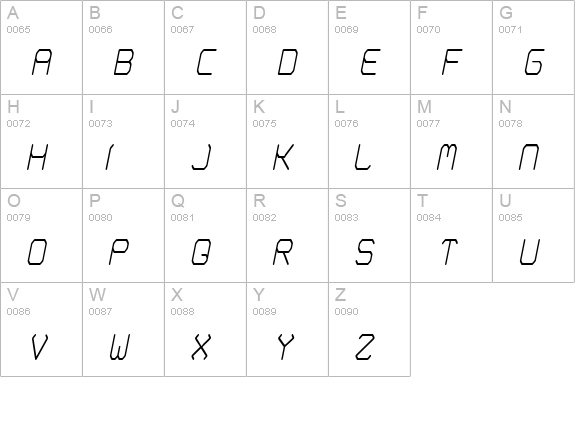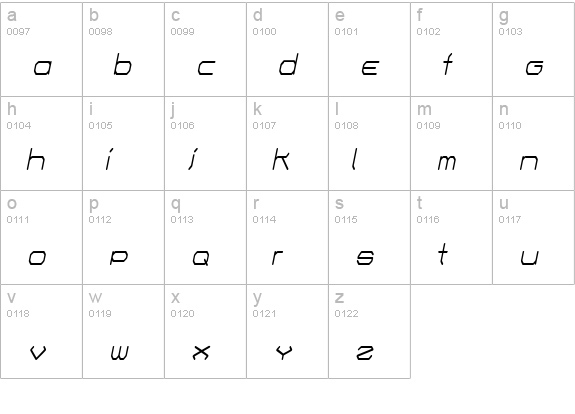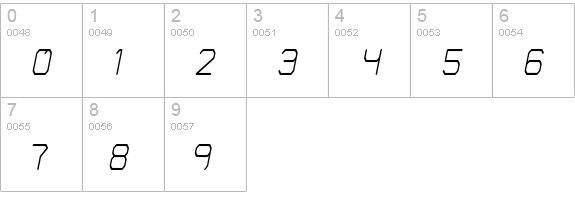
Fontmaker's Choice ThinItalic Font Details
Fontmaker's Choice ThinItalic is a sleek and elegant typeface that exudes sophistication and modernity. With its delicate and slanted design, this font adds a touch of elegance to any project, making it perfect for stylish and refined designs. The thin and italic style of Fontmaker's Choice gives a unique and contemporary look, ideal for fashion magazines, luxury branding, and upscale invitations. What makes Fontmaker's Choice ThinItalic even more appealing is the fact that it is available for free download at FontsMarket.com. This means that you can easily access this high-quality font without any cost, making it a fantastic choice for designers on a budget or anyone looking to add a touch of elegance to their work. Don't miss out on the opportunity to enhance your designs with the beauty and sophistication of Fontmaker's Choice ThinItalic - download it for free today at FontsMarket.com!